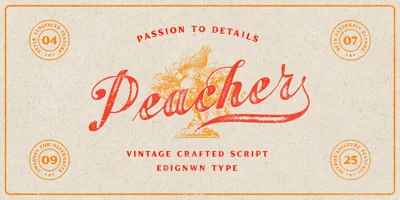
Peacher Font
The Peacher Font excels in various design applications including southern orchard branding, fresh fruit packaging, peachy summer cafe signage, sweet dessert restaurant communications, organic farm stand materials, fruit smoothie bar identities, seasonal harvest festival promotions, sweet bakery product labeling, natural juice brand marketing, and delightful agricultural projects that demand peachy sweetness and orchard sophistication.
What makes the Peacher Font exciting is its delightful embodiment of summer sweetness and orchard freshness through letterforms that capture the essence of ripe peaches and the sun-kissed beauty of fruit harvest seasons. This typeface demonstrates exceptional warmth through carefully crafted characters that suggest the soft curves of peach fruit, the golden glow of summer sunshine, and the natural sweetness that makes fresh peaches so irresistibly appealing. The font's peachy personality makes it perfect for agricultural brands and seasonal businesses seeking to communicate natural sweetness, farm-fresh quality, and the kind of summer warmth that evokes memories of perfect orchard days through typography that literally glows with peachy charm.
The Peacher Font family typically includes sweet weight variations that enhance the fruity aesthetic, featuring warm styling options and extended character sets optimized for agricultural marketing and seasonal communications. These family options often include orchard-inspired alternates, fruit symbols, and harvest decorative elements that provide designers with comprehensive tools for creating authentically sweet typography that celebrates agricultural abundance while maintaining contemporary design appeal and natural freshness.
Agricultural professionals and seasonal food brands consistently choose Peacher Font for projects requiring typography that communicates natural sweetness and orchard quality. This typeface delivers exceptional performance in farm marketing, fruit branding, and seasonal communications where establishing freshness and creating appetite appeal is essential for customer satisfaction. The font's peachy character makes it particularly effective for summer and dessert applications. Download Peacher Font today to access this sweet typeface that transforms agricultural communications with its peachy warmth and orchard sophistication, creating compelling harvest experiences that celebrate the natural sweetness of farm-fresh fruit while maintaining the sun-kissed appeal that makes seasonal produce absolutely irresistible to food lovers everywhere.